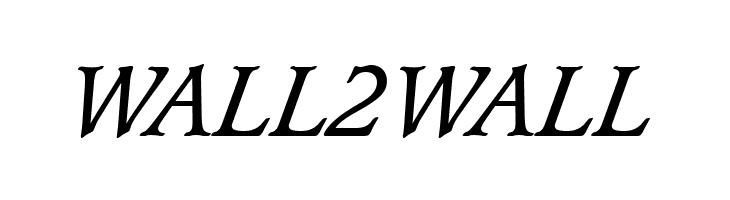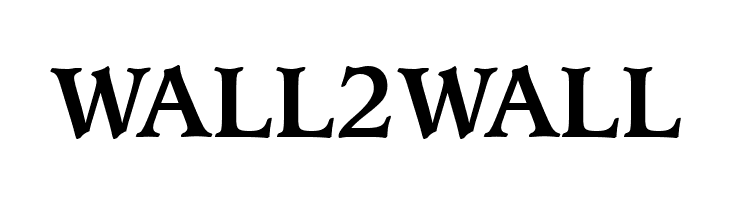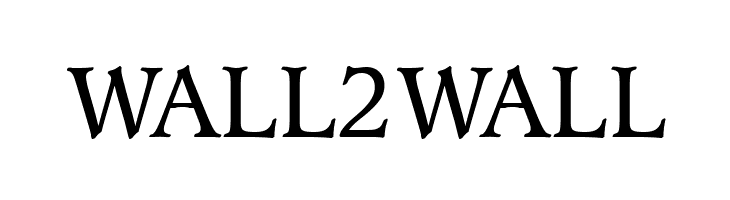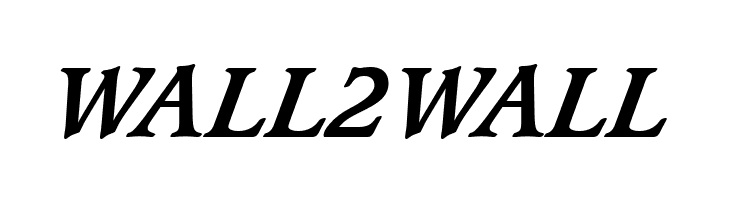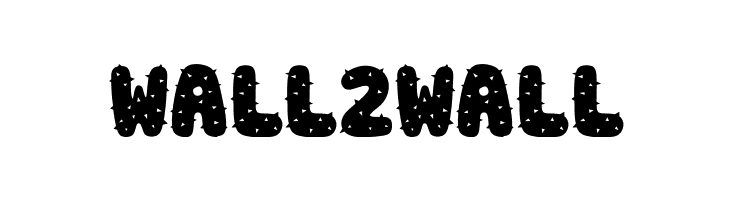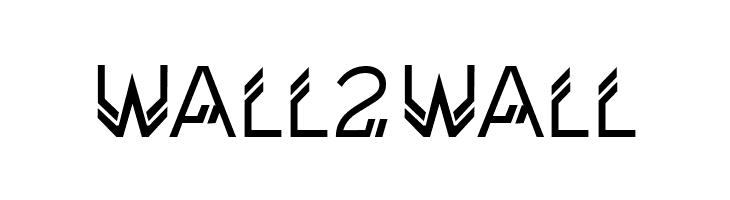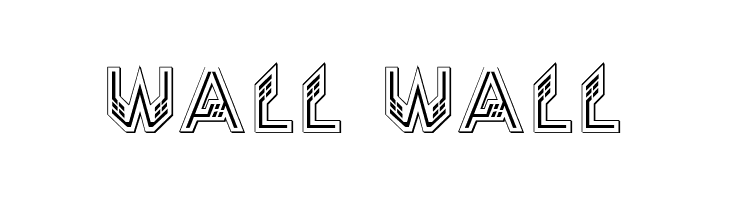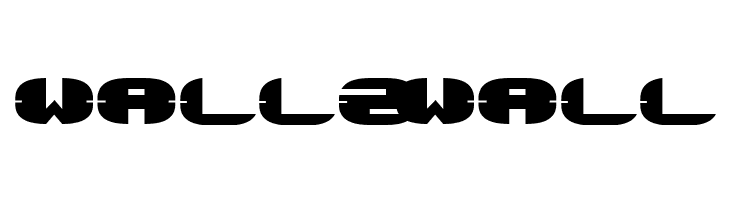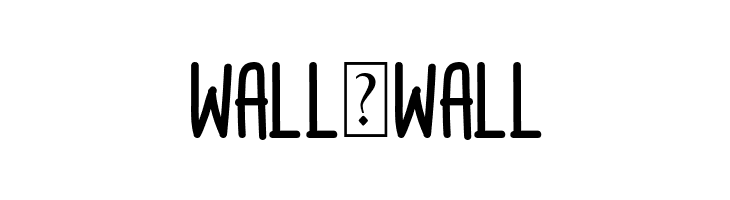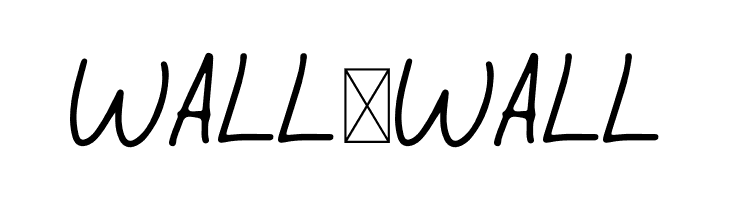
• Sketch Book
A playful, sketch-like font with a hand-drawn, textured appearance.
• Sleepy Book
A playful, bold font with wavy outlines and a whimsical style.
• Sleepy Book
A playful, bold font with rounded edges and a unique shadow effect.
• Space Crazy Zone
A pixelated, arcade-inspired font with a retro space theme.
• Spanish-Round-Bookhand--16th-c-
• Spear_Mint
• Spiky Book Italic
( Vladimir Nikolic - www.coroflot.com/vladimirnikolic )
A bold, spiky, and textured font with a playful and edgy design.
• Spiky Book Regular
( Vladimir Nikolic - www.coroflot.com/vladimirnikolic )
A bold, spiky, and playful font with a textured appearance.
• Spiky Book Regular
A bold, spiky, and playful decorative font with a unique textured appearance.
• Spiky Book Regular
A bold, spiky, and playful font with a textured appearance.
• Square Antiqua
• St Bookashade
• Stage Book Regular
A bold, futuristic font with geometric elements and unique cutouts.
• Sticky Book
A playful, casual handwritten font with smooth, flowing lines and a friendly appearance.
• Story Book
A bold, brush-style font with dynamic, expressive strokes.
• Street Intruder Book Regular
A modern, geometric font with angular and futuristic design elements.
• Stretched Book Regular
A bold, futuristic font with a geometric and stretched design.
• Striptease Book Regular
A geometric, layered font with a modern and artistic style.
• Study Symbol Book
( Fonts by PutraCetol Studio )
A bold, decorative font with an educational theme, featuring book symbols beneath each character.
• Sudbury Book
( Roger White - web.archive.org/web/20120416090521/www.rogersfonts.org.uk/ )
A classic serif font with elegant strokes and pronounced serifs.